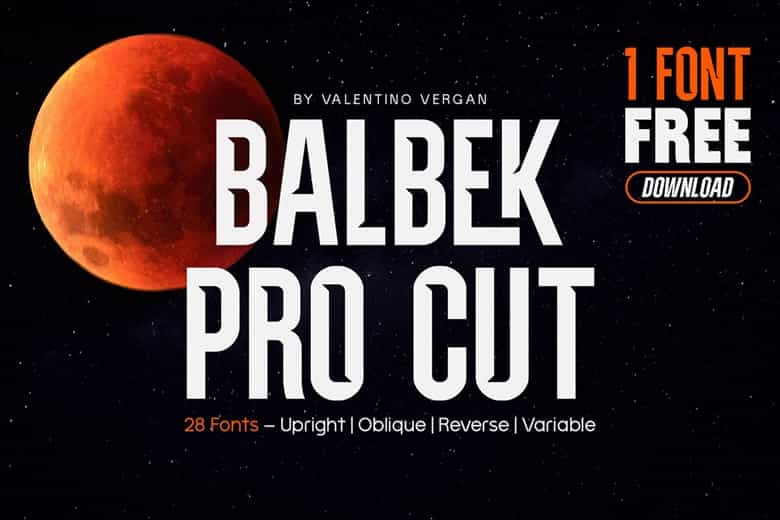
Balbek Pro Cut is a new modern sans serif based on neutral aesthetic letters, that provides a natural condensed look of the letters. Balbek Pro Cut is an enhanced version of the original Balbek Cut font in terms of design, readability and number of characters.